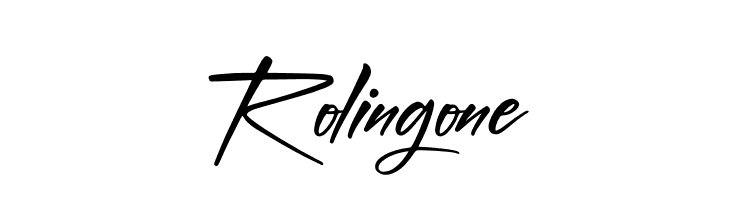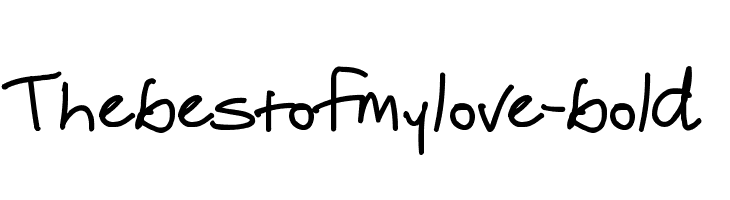
A dynamic, handwritten font with fluid strokes and artistic flair.
A bold, playful outline font with a whimsical, distorted appearance.
A playful, bold font with characters enclosed in rounded shapes, perfect for creative projects.
A playful, handwritten font with irregular strokes and a casual vibe.
A bold, playful handwritten font with a casual and approachable style.
A bold, italicized, and condensed font with a futuristic and dynamic style.
A bold, rugged font with a distressed, textured appearance.
A playful, dotted decorative font with bold, rounded characters.
A fluid, dynamic font with an organic, liquid-like appearance.